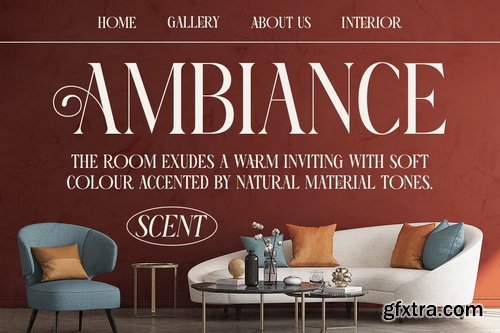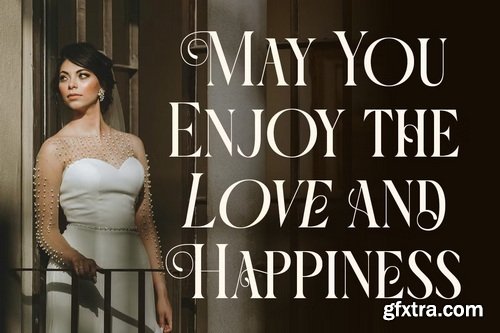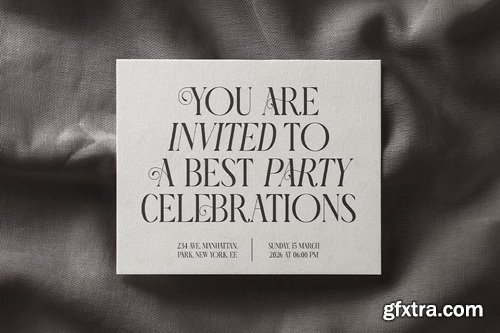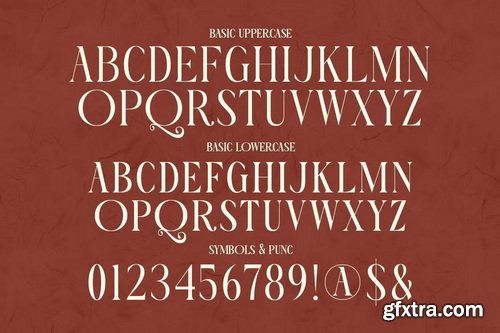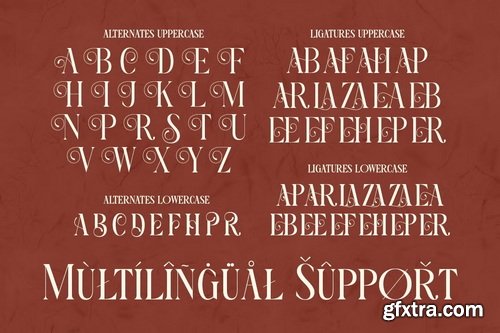
- Lanchery blends elegant curves with sharp details, creating a font that feels delicate yet structured. Each character is carefully crafted to bring a sense of timeless beauty and modern clarity, ideal for design work that values both impact and subtlety.
- Whether used for magazine titles, logo design, or product packaging, it brings a poised aesthetic that feels contemporary while rooted in classic serif tradition.